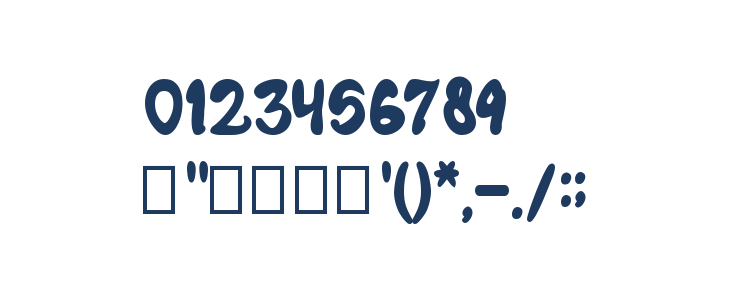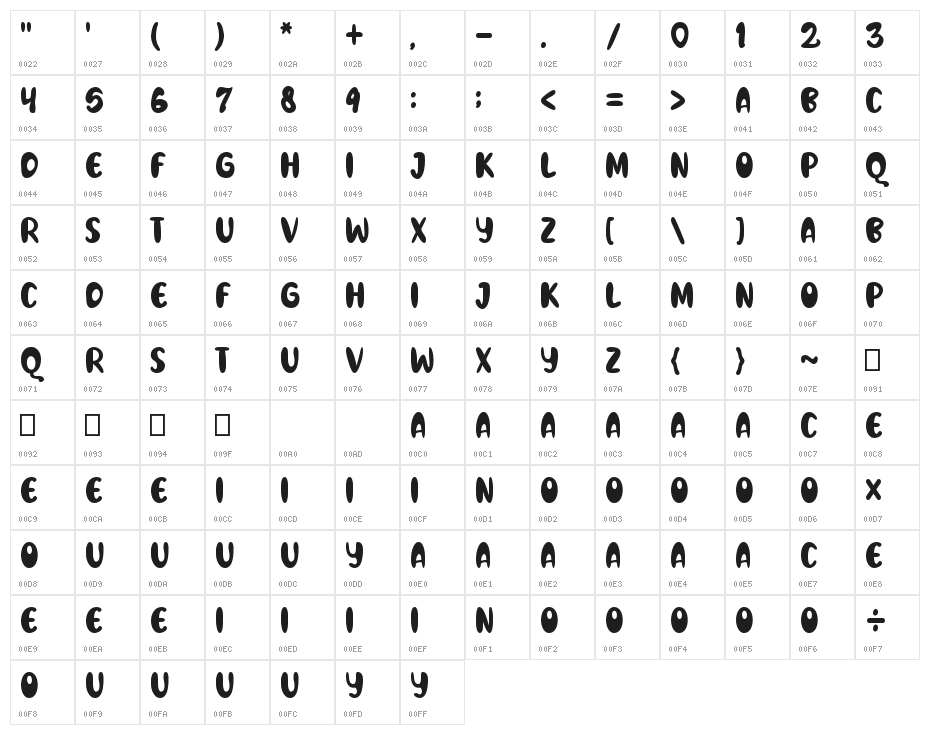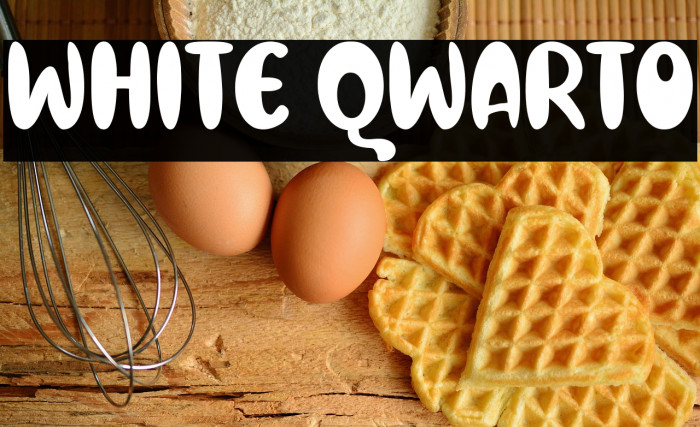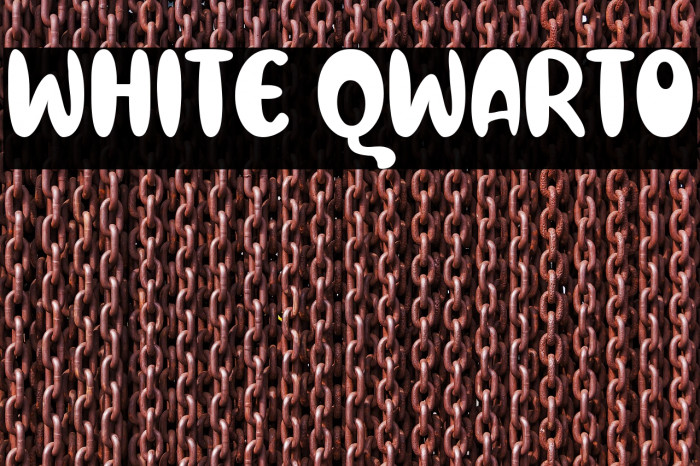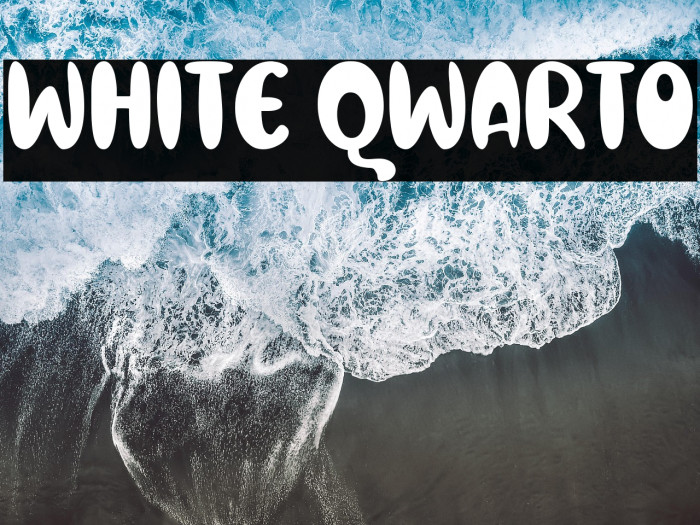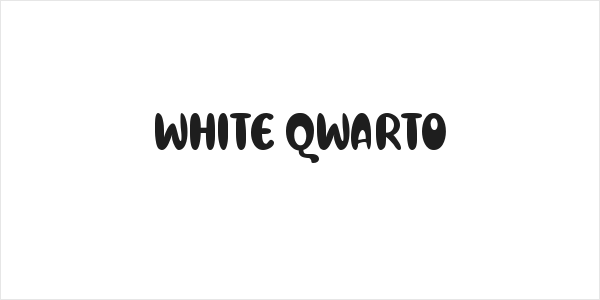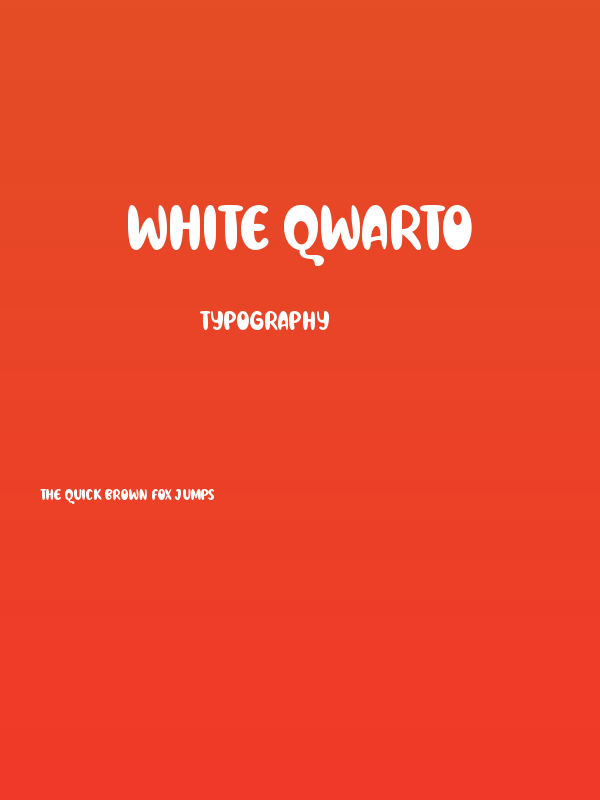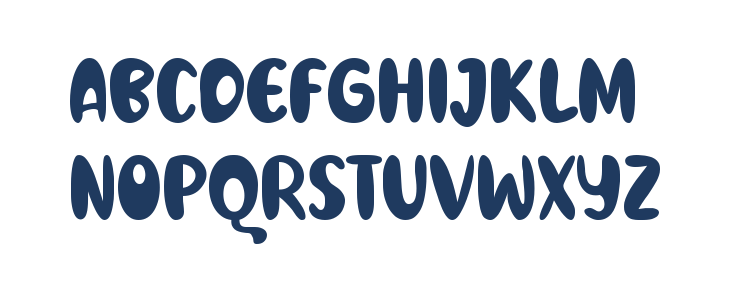
White Qwarto Font
This font features a bold and playful design with rounded edges and a bubbly appearance. The characters are thick and have a uniform stroke width, giving them a strong presence. The style is reminiscent of hand-drawn or cartoonish lettering, making it ideal for projects that require a fun and informal look. The letters are slightly condensed, which adds to the compact and cohesive feel of the text. The numbers and special characters maintain the same playful style, ensuring consistency across all elements. This font is perfect for designs that aim to capture attention and convey a sense of whimsy and creativity.
| Overall Style | Playful, Cartoonish |
| Proposed Projects | Ideal for children's books, playful branding, posters, and social media graphics. |